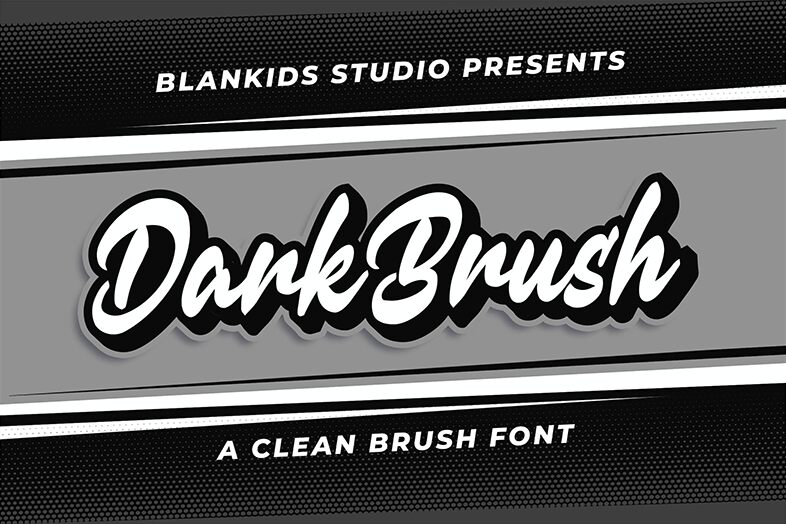
Dark Brush is a captivating brush-style font created by the talented designers at Blankids. With its bold, expressive strokes and dynamic movement, this font exudes a sense of raw energy and artistic flair. The bold, sweeping lines and organic feel evoke a captivating, handcrafted aesthetic, making it a standout choice for projects seeking a distinct, impactful visual impact.
This versatile font lends itself beautifully to a wide range of design applications, from bold headlines and impactful branding to eye-catching typography in editorial layouts, packaging, and beyond. Its robust, expressive character makes it an excellent choice for projects aiming to convey a sense of artistic passion, authenticity, and creative vibrancy.
Dark Brush by Blankids Studio
Dark Brush